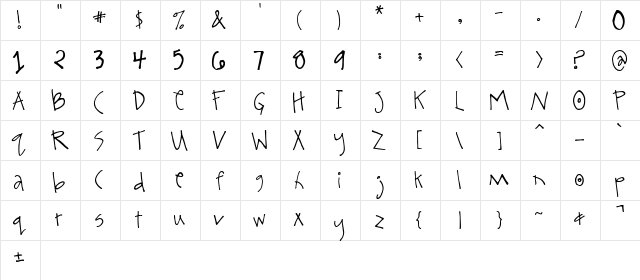
2Peas Funky Monkey Regular
Design Context for 2Peas Funky Monkey Typeface
2Peas Funky Monkey trades formality for fun, with bouncy, characterful letterforms that bring warmth and energy to any project.
Font Pairing: Pairs well with a rounded or humanist sans for body copy, maintaining the friendly tone without relying on 2Peas Funky Monkey to carry extended reading.
Pro Tip: Use 2Peas Funky Monkey at larger display sizes where its expressive character can land. Pair with a clean, simple sans for body copy to maintain readability.